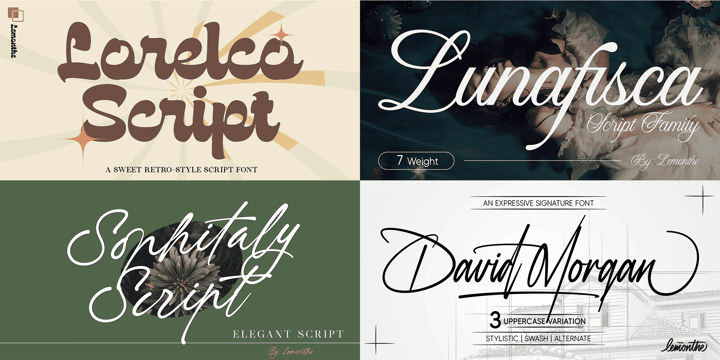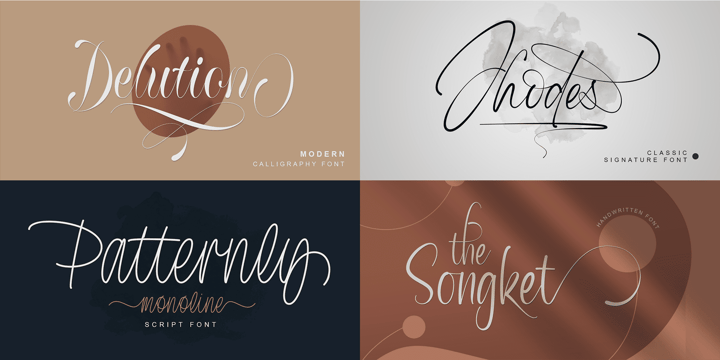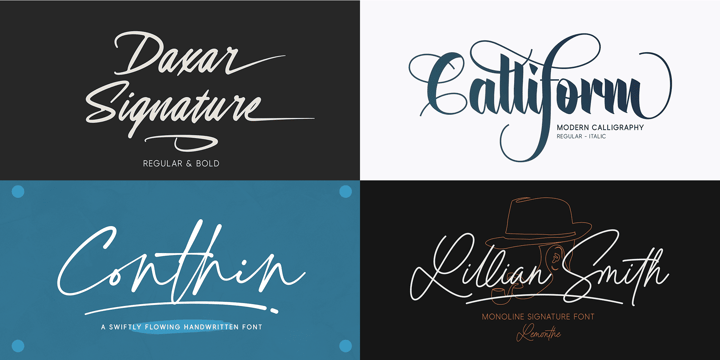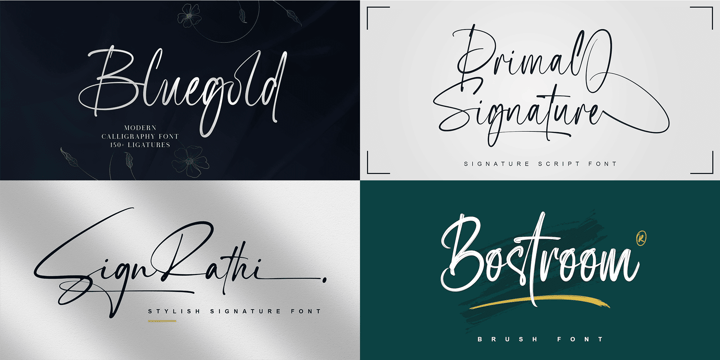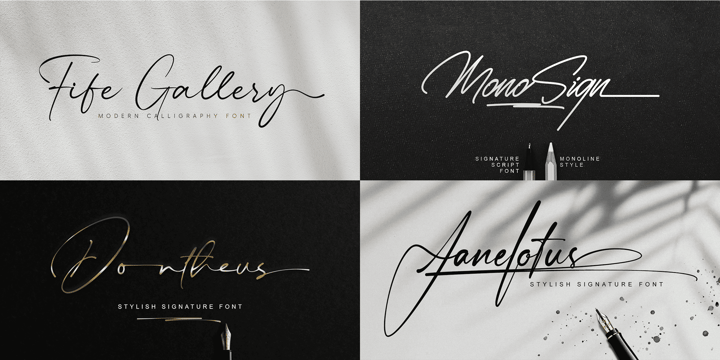
Scripted Bundle
Featuring a wide selection of handwritten and script-style fonts, Scripted Bundle is ready to enrich your design projects with soft, elegant, and artistic character. Ideal for branding, social media, and other creative designs.